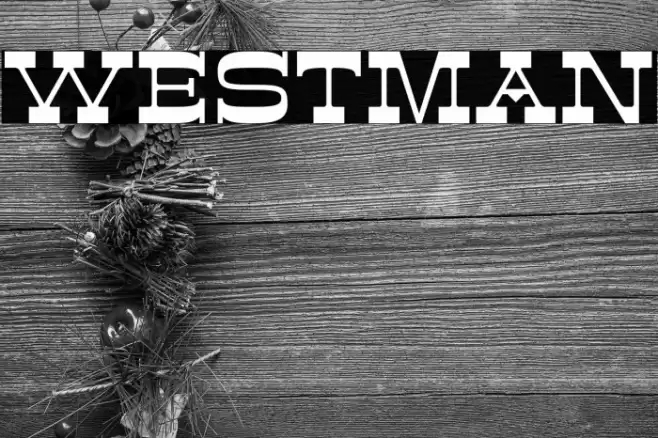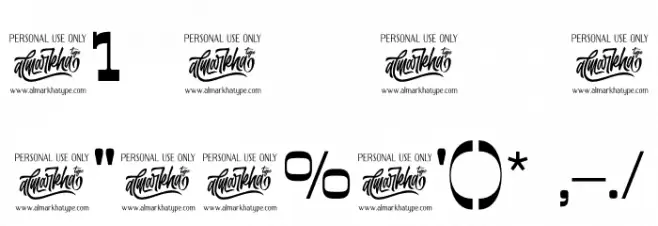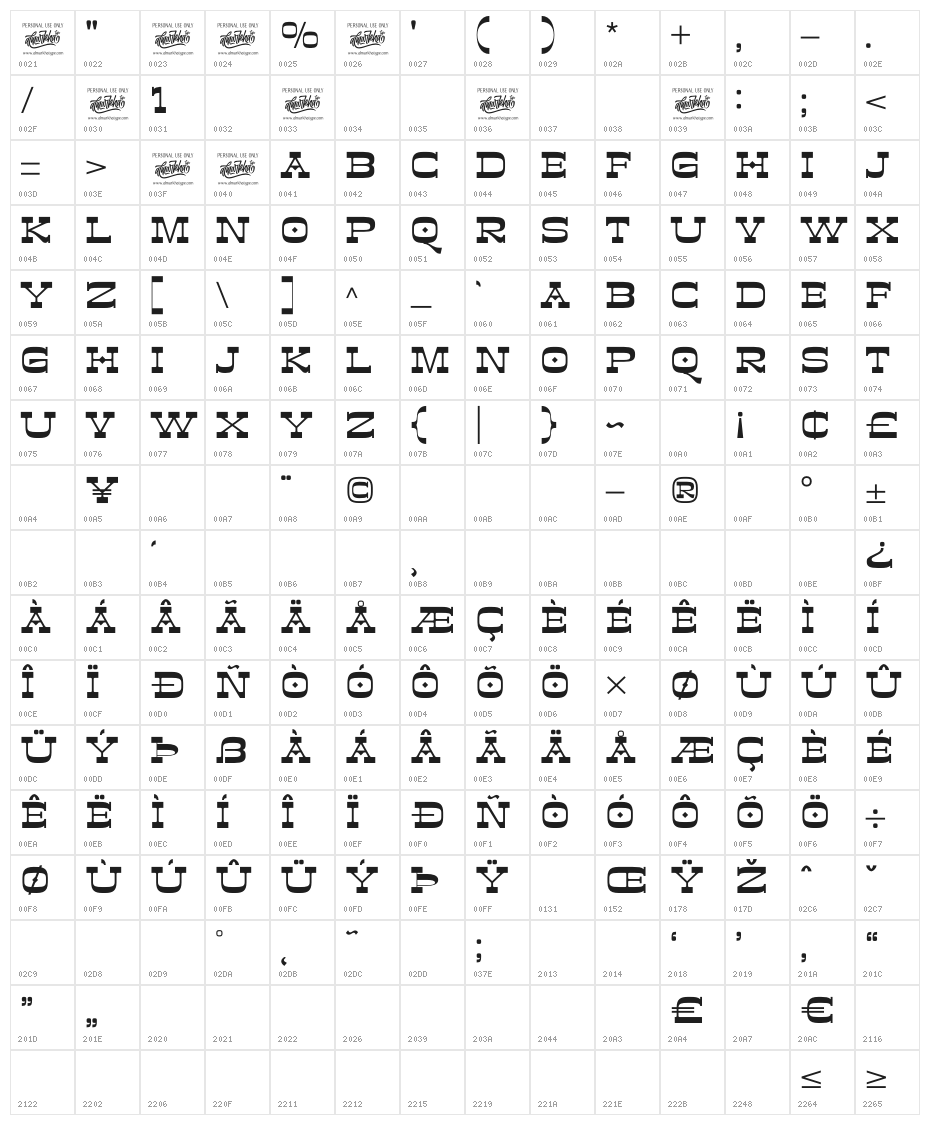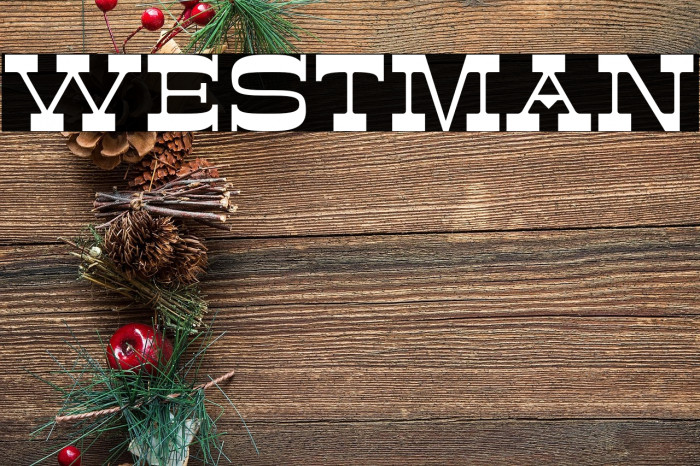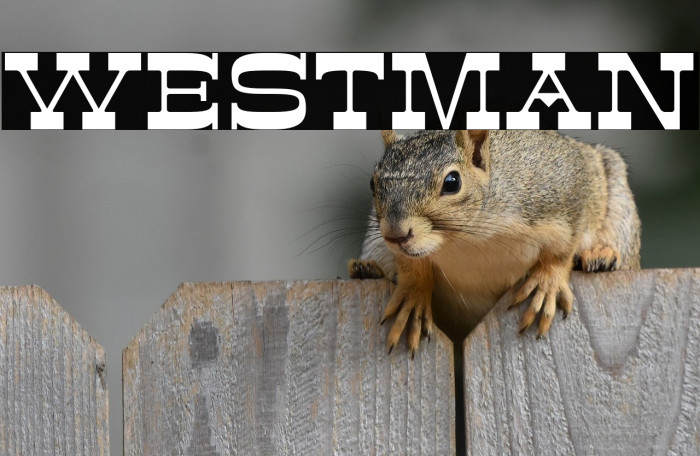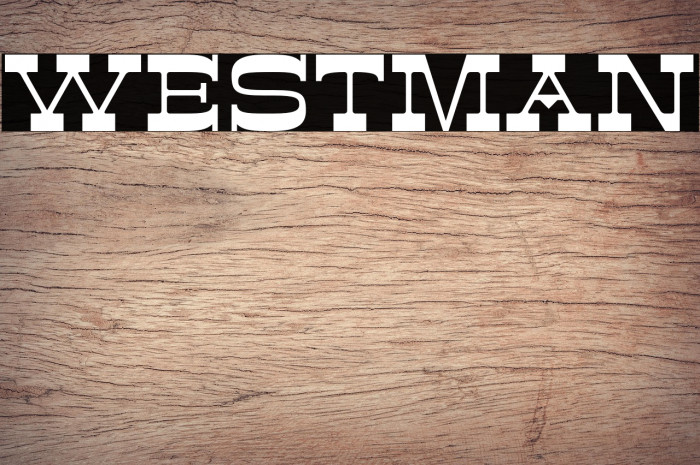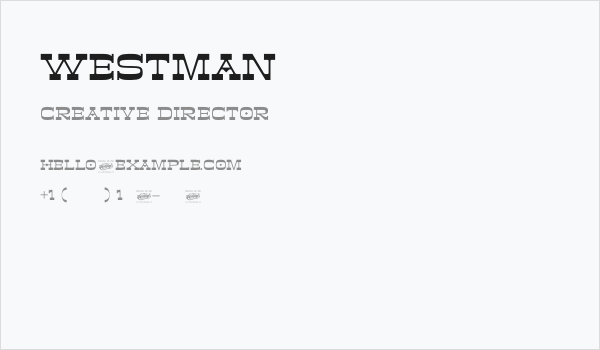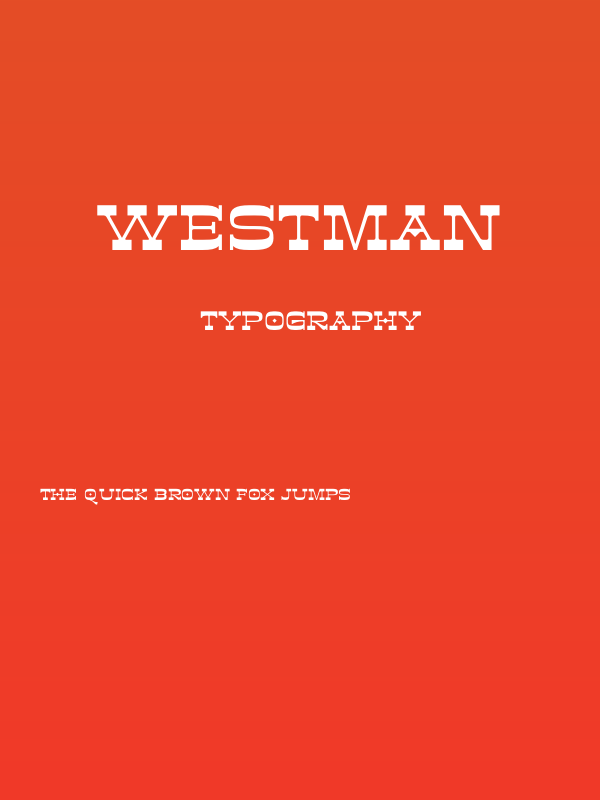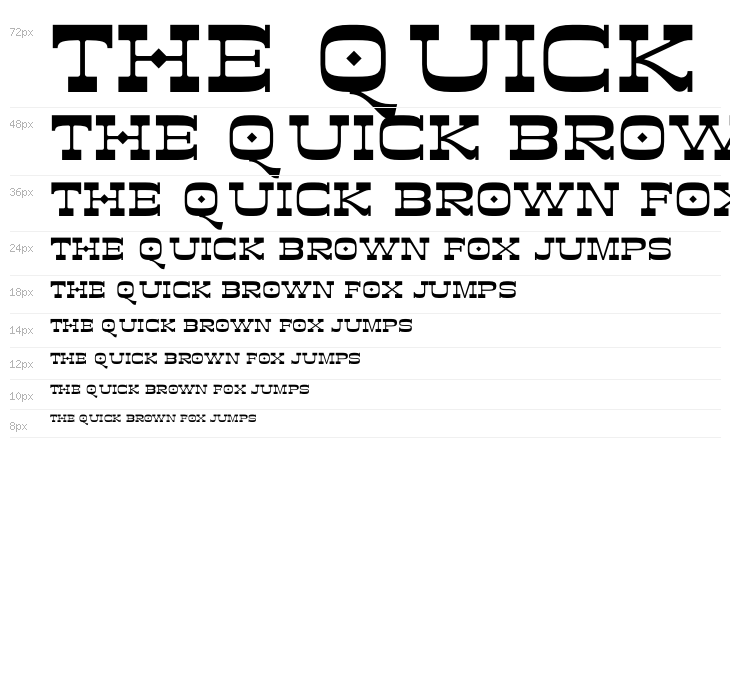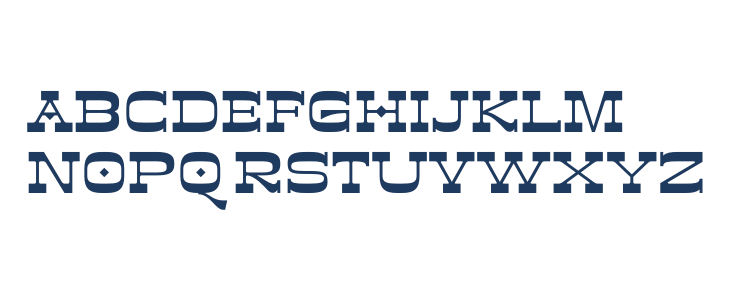
Westman Font
Westman Description
This font features a bold, geometric style with a strong presence. The uppercase letters are characterized by sharp angles and consistent stroke widths, giving it a modern and industrial feel. The lowercase letters maintain the same geometric structure, providing a cohesive look across different text sizes. The numerals and special characters are designed to match the boldness and angularity of the alphabet, ensuring uniformity in any text composition. The font's distinct style makes it ideal for impactful headlines and branding projects where a strong visual statement is desired.
A bold, geometric font with a modern, industrial aesthetic from Uncategorized fonts.